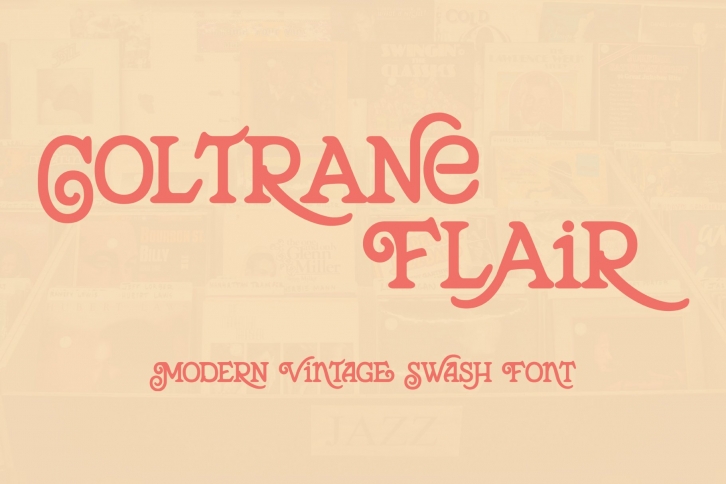
Coltrane Flair is a modern vintage rounded serif font. Coltrane is inspired by 70s swashed typefaces with little psychedelic touch. Coltrane Flair is rich in alternates and discretionary ligatures and is great for logos, titling, labels, brandings, socials and more. Enjoy!